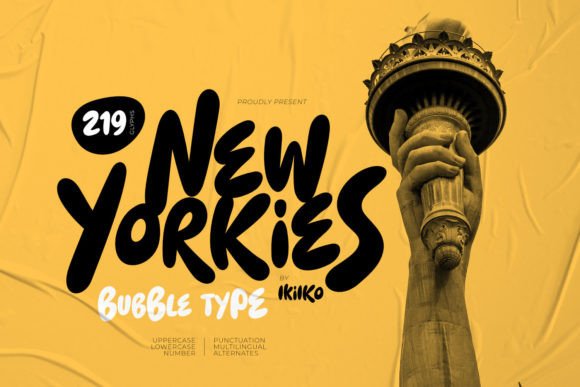
Dive into the world of New Yorkies Font, a captivating display font that ignites a visual revolution. Its audacious letterforms dance across the page, captivating the senses with their stylish flair and unwavering presence. This font is more than just a collection of characters; it's an artistic masterpiece, designed to elevate your projects to new heights of visual splendor.
Step into the spotlight with New Yorkies Font, a font that commands attention like no other. Its sharp edges and playful curves evoke a sense of edgy sophistication, while its dynamic glyphs and ligatures add a touch of captivating whimsy. Whether you're crafting logos, posters, or social media graphics, this font guarantees to make a lasting impression.
Unlock the boundless potential of New Yorkies Font. With its PUA encoding, you can effortlessly access a treasure trove of stunning glyphs and ligatures. These intricate details elevate your designs, adding depth and dimension that captivate audiences. Unleash your creativity and watch as New Yorkies Font transforms your words into mesmerizing visual art.
With New Yorkies Font, the possibilities are endless. Its versatility knows no bounds, adapting seamlessly to a myriad of projects. Breathe life into your digital marketing campaigns, ignite passion in your branding materials, or add a dash of personality to your personal projects. This font is your gateway to limitless creative expression.
Don't settle for ordinary fonts that fade into the background. Embrace the boldness of New Yorkies Font, a font that demands attention and leaves an indelible mark. Let your designs shine with the vibrancy and charisma of this extraordinary font. Experience the transformative power of New Yorkies Font today and witness the magic unfold before your eyes.